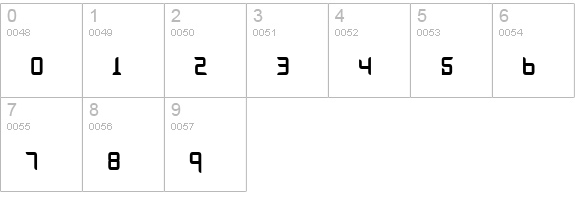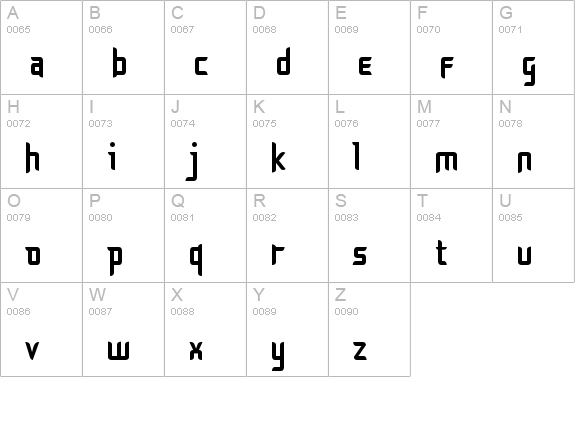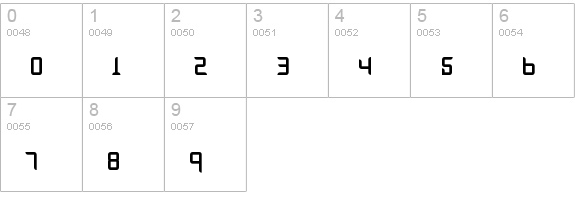
Sliver Font Details
Sliver font is a sleek and modern typeface that will add a touch of sophistication to any design project. Its clean lines and elegant curves make it perfect for headlines, logos, and branding materials. With its contemporary and versatile style, Sliver font is sure to catch the eye and leave a lasting impression. But what makes Sliver font even more appealing is that it is completely free. Yes, you heard right! This stunning font is freely available to download at FontsMarket.com. Whether you're a professional designer or a hobbyist, you can now enjoy the beauty of Sliver font without spending a dime. With its wide range of weights and styles, Sliver font offers endless possibilities for creativity. Whether you prefer a bold and impactful look or a more subtle and refined approach, Sliver font has got you covered. Its smooth and balanced letterforms will ensure legibility in any size or format, making it a perfect choice for both print and digital design. So why wait? Head over to FontsMarket.com and download Sliver font today. With its combination of style, versatility, and the fact that it's free, Sliver font is a must-have for any designer looking to make a statement. Don't miss out on this opportunity to add a touch of elegance to your projects without breaking the bank. Get your hands on Sliver font and let your creativity shine.